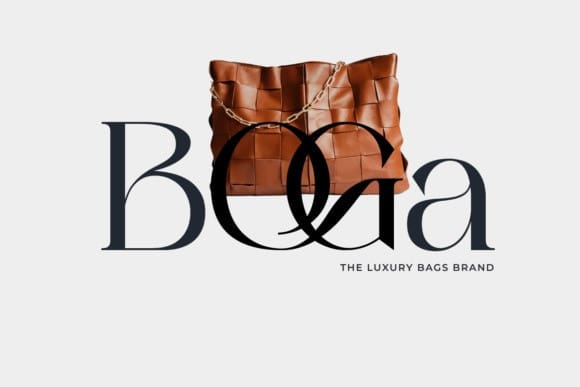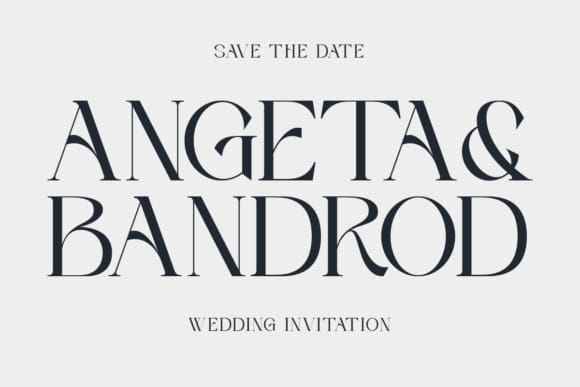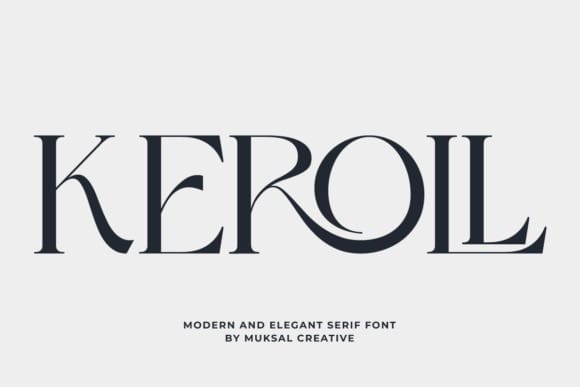
Keroll Font
Keroll Font is a modern serif font designed for sophistication and elegance. With distinctive ligatures, it adds finesse to every character, making it ideal for branding and logo creation. Versatile and classy, Keroll is perfect for luxury brands and boutique products, enhancing visual identity effortlessly. Elevate your designs with Keroll’s timeless elegance and make a lasting impression.